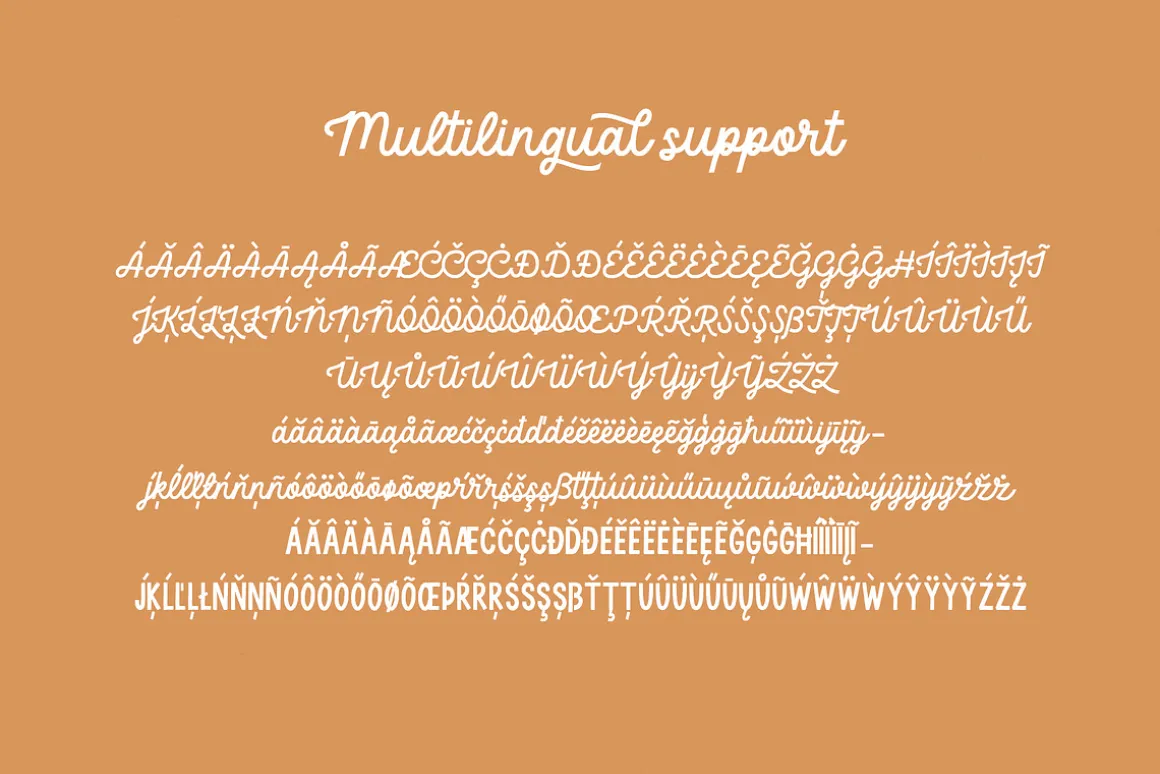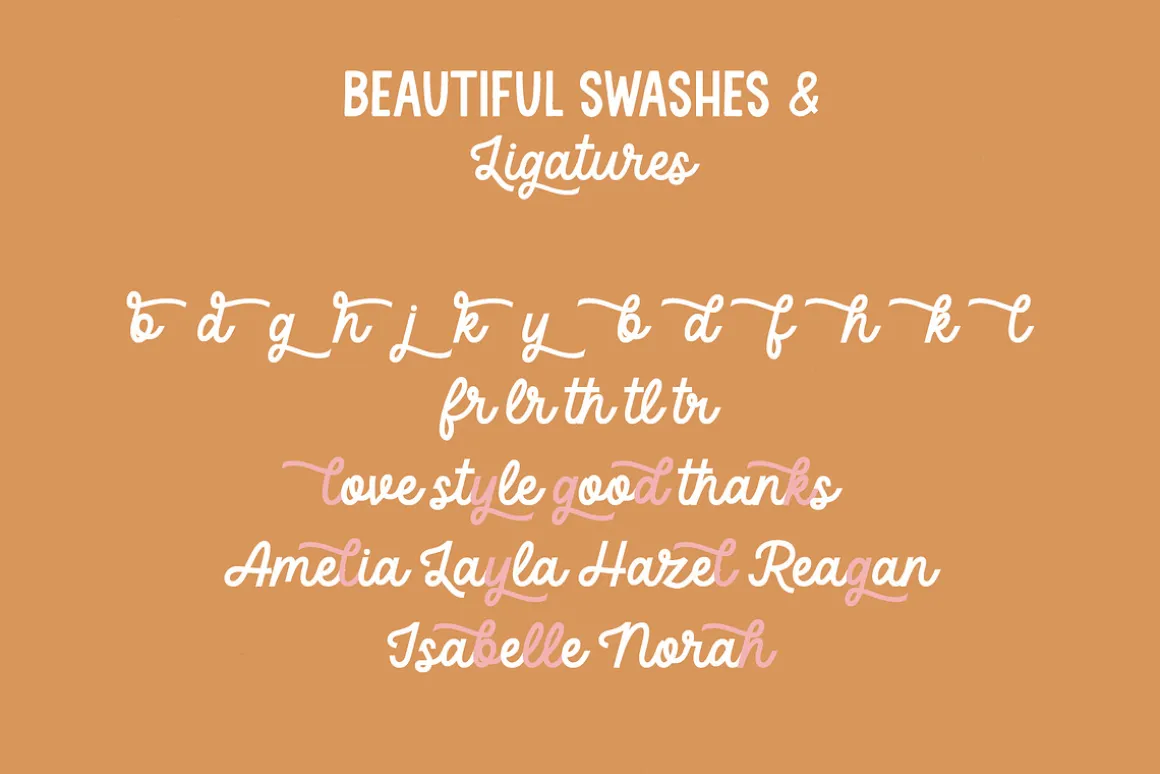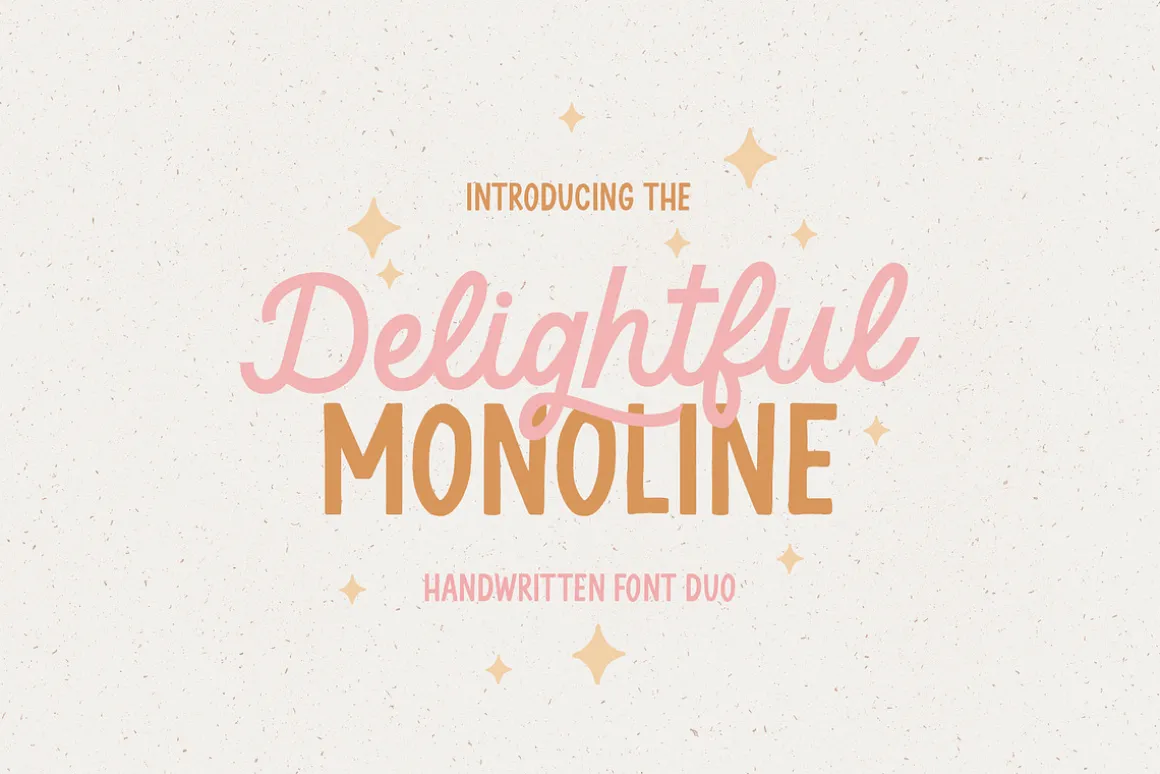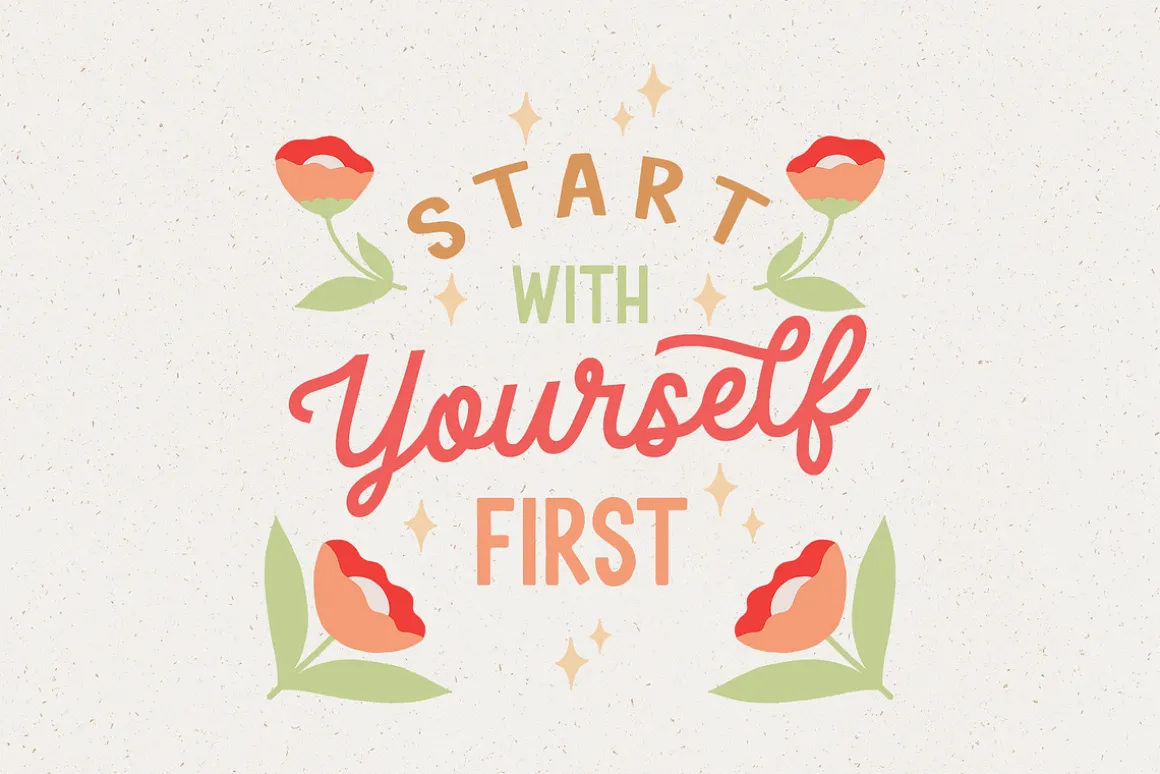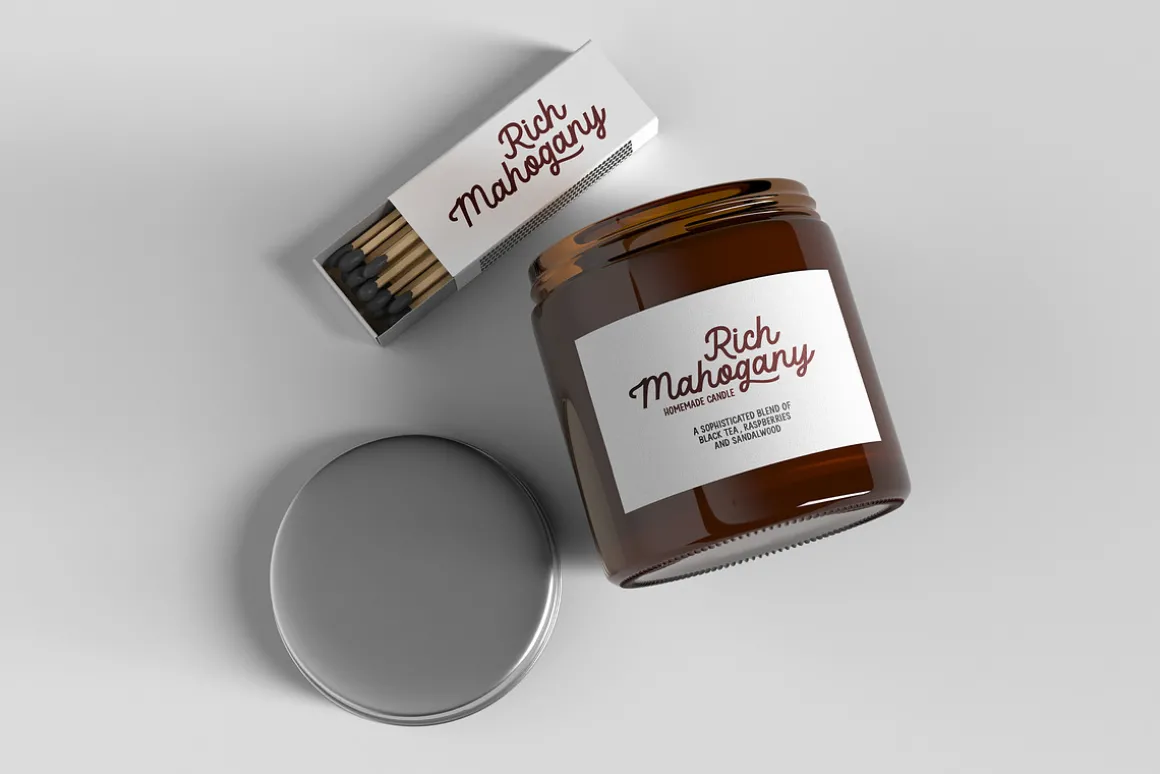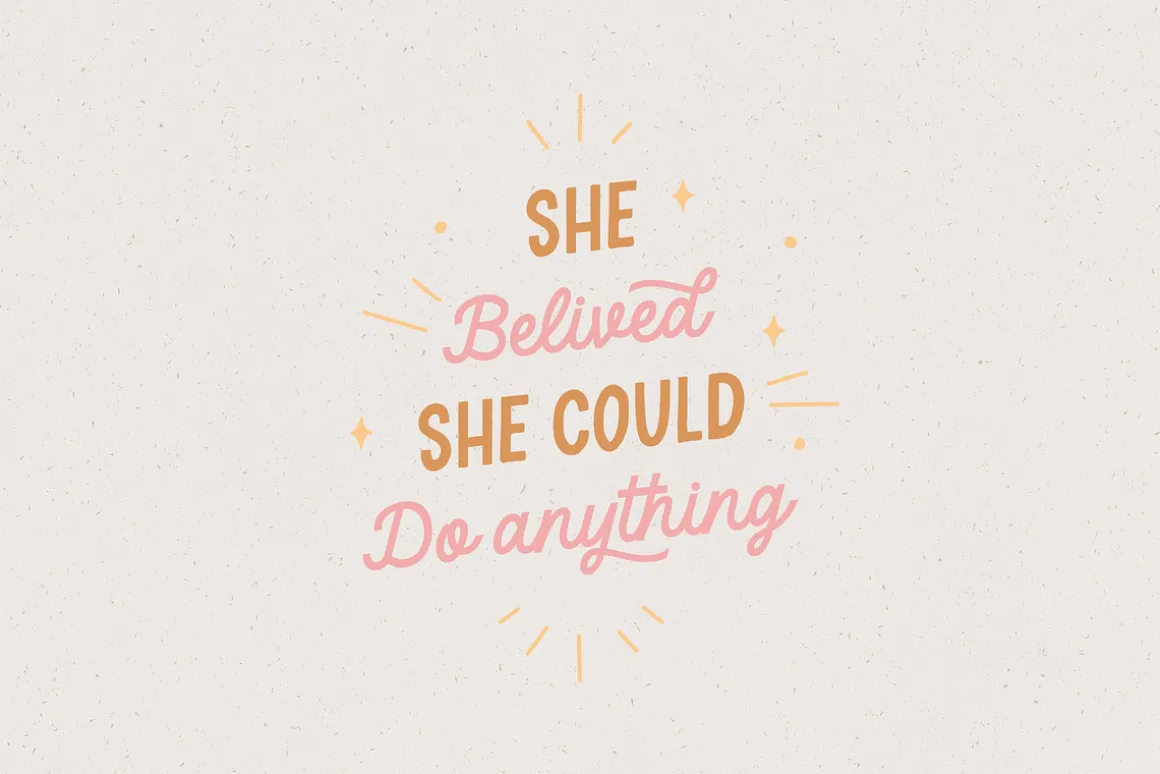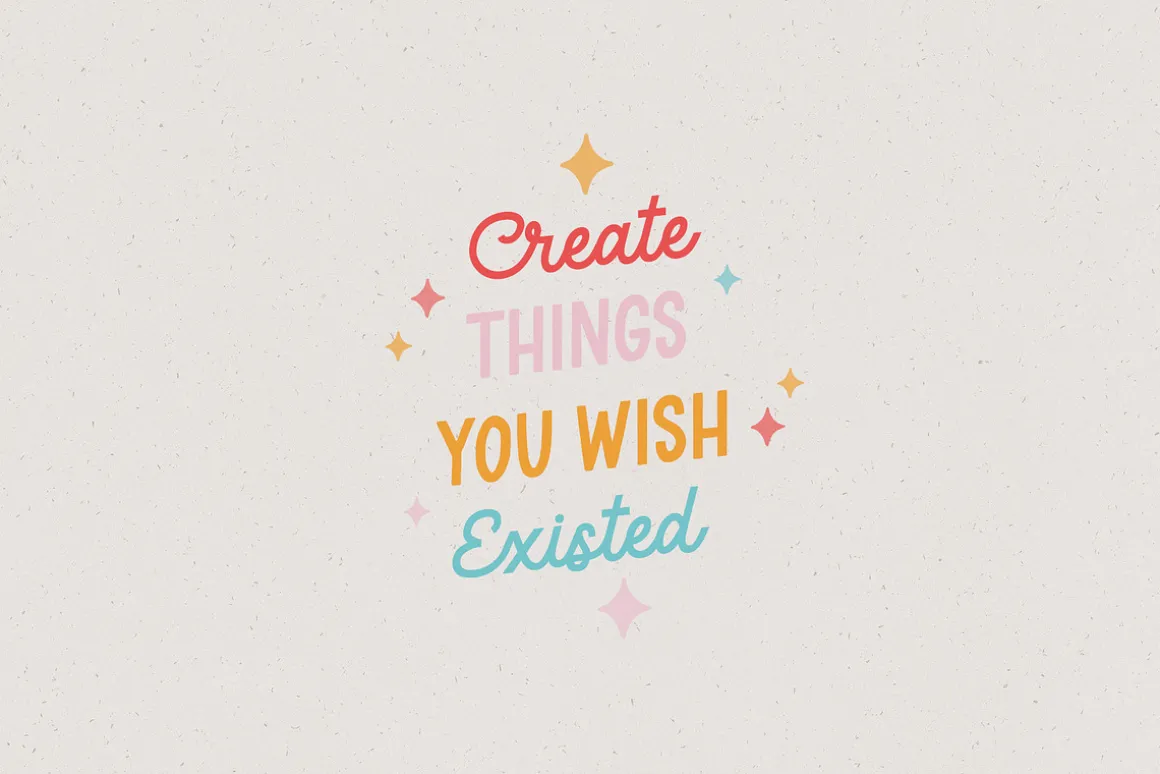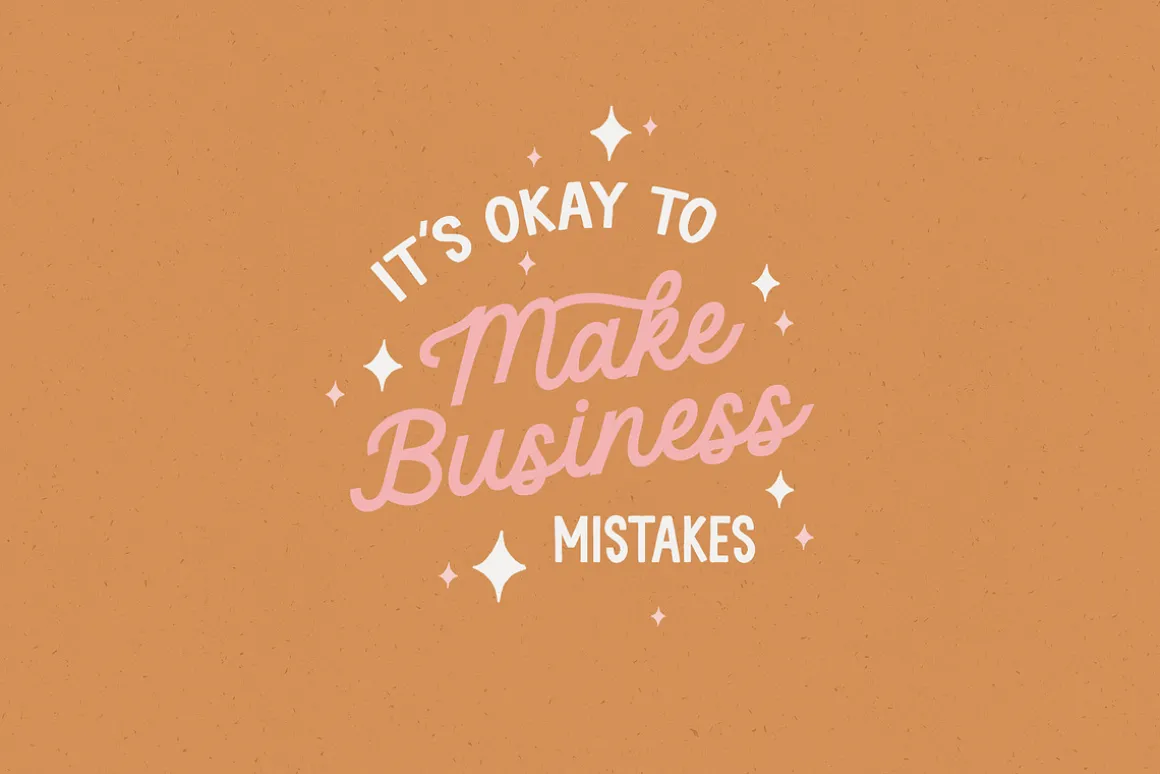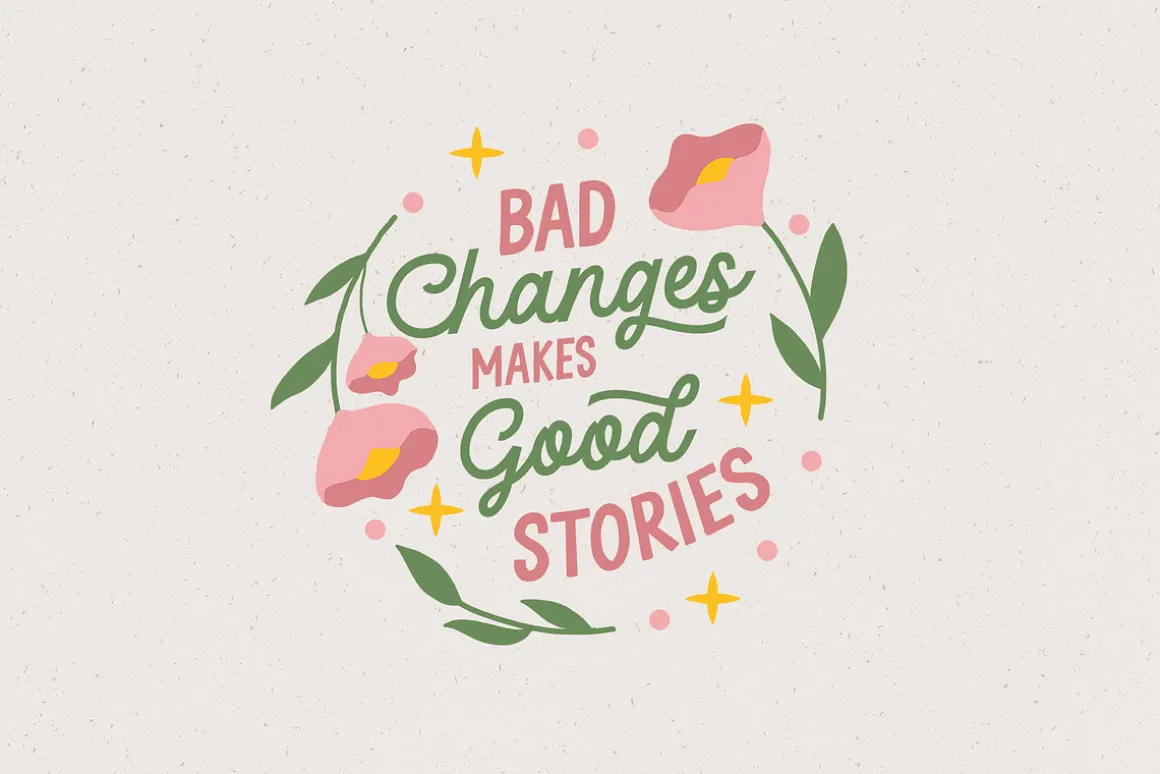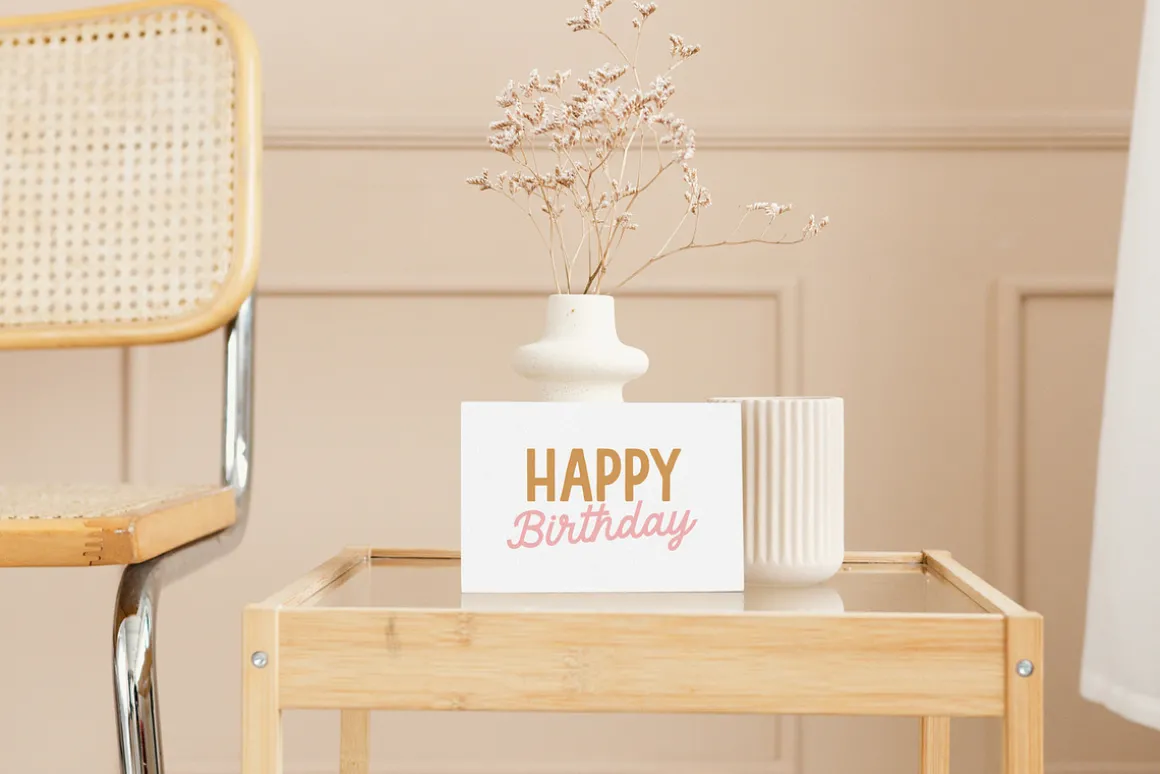
Delightful Monoline DUO will be perfect for wedding lettering, beautiful frame for your home, book covers, greeting cards, logos, marketing, magazines or anything that requires cute handwritten lettering 🙂
- Delightful Monoline Script
- Delightful Monoline Sans
- Swashes
- Multilingual support